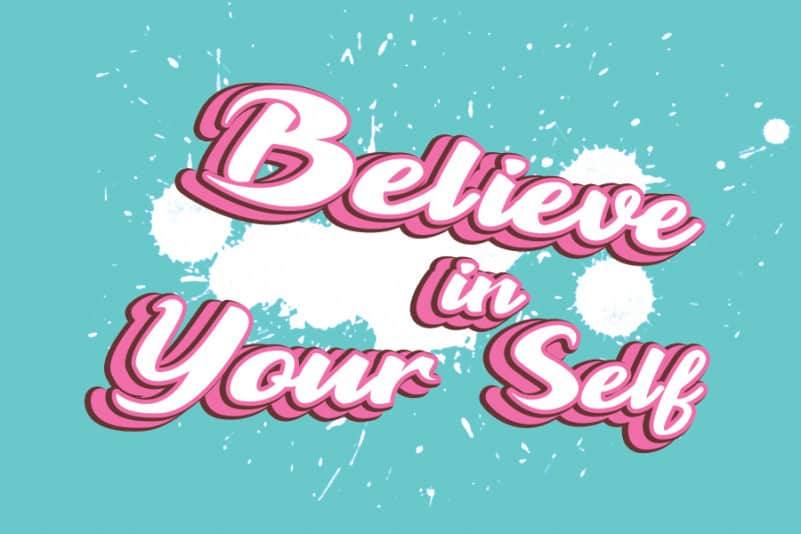
It’s Magnolia Bold Script Font
It’s Magnolia Bold Script Font is a sweet and friendly display font. Its cute style makes it incredibly fitting to a large pool of designs. The only limit is your imagination!